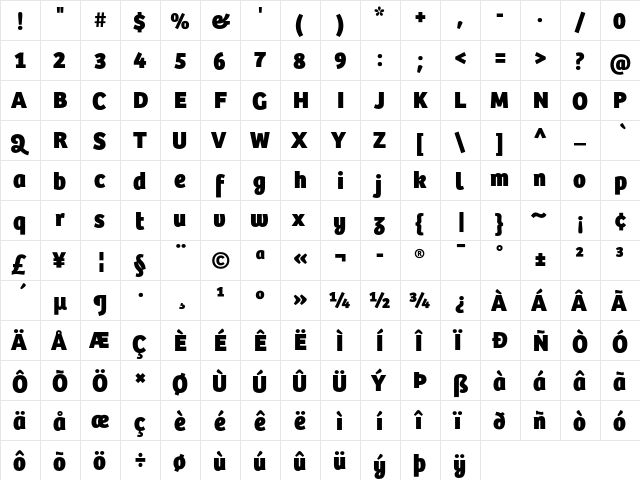
Bree ExtraBold
| Foundry | TypeTogether |
| Designer | Veronika Burian, JosΠScaglione |
Design Context for Bree Typeface
Bree takes a measured approach to typography — its balanced proportions and neutral character make it a reliable workhorse for both digital and print work. The heavy weight commands attention and anchors typographic hierarchies.
Pro Tip: Use Bree in both headline and body roles to test its range before committing to a single application.